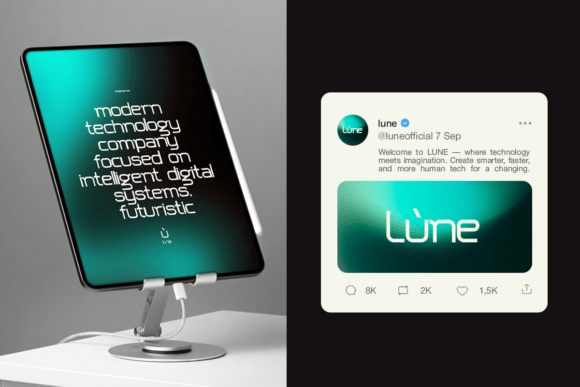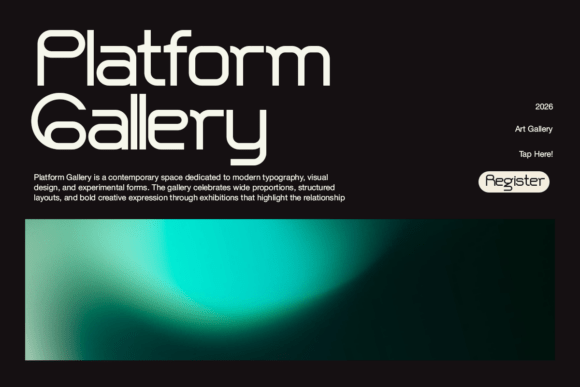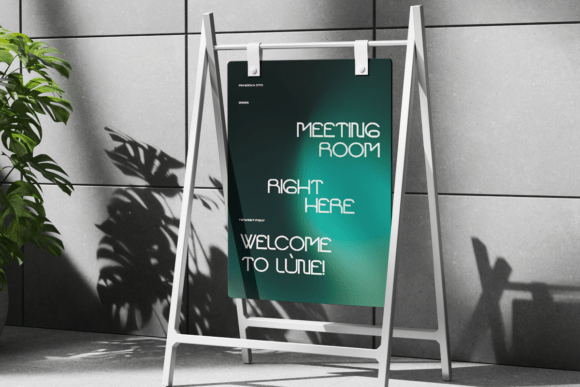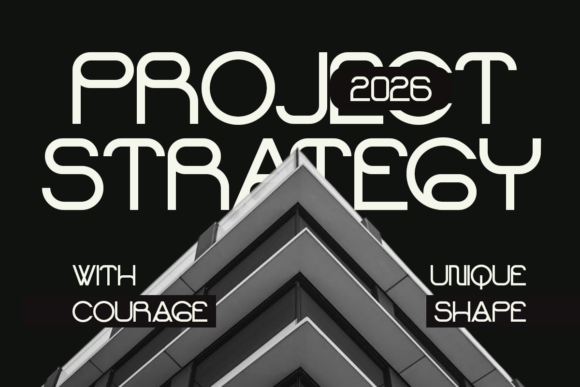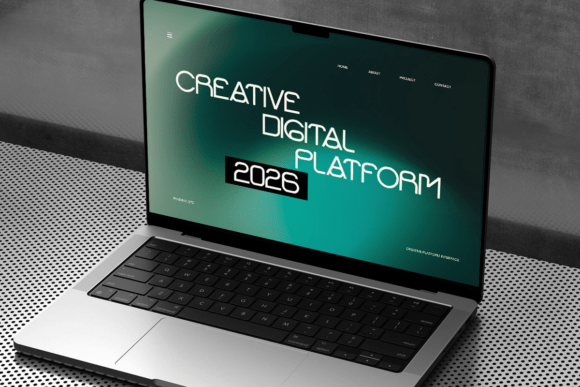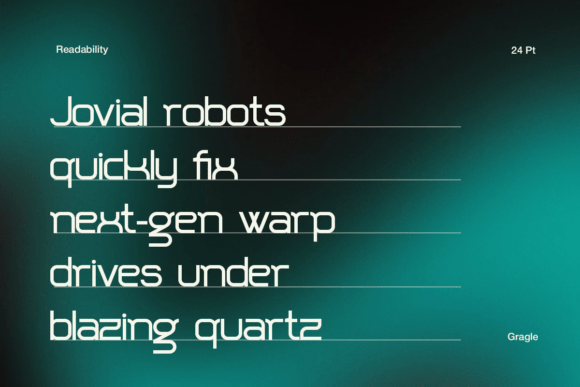
Introducing Gragle Font: The Ultimate Modern Techno Display Font
In the world of digital design, typography plays a crucial role in conveying the tone and personality of a brand or project. For those looking to make a bold statement with their visual identity, Gragle Font is the perfect solution. This modern techno display font is specifically crafted to evoke a sense of sleekness, futurism, and innovation, making it an ideal choice for technology branding, gaming visuals, digital interfaces, and modern creative projects.
The Design Philosophy Behind Gragle
Gragle Font is built on the principles of sleek geometric construction, futuristic curves, and clean digital aesthetics. Its unique letterforms are designed to create a strong high-tech atmosphere, instantly grabbing the attention of your audience. The font’s design is characterized by its bold and contemporary presence, which is balanced with excellent readability. This makes Gragle an incredibly versatile font that can be used across various platforms and applications.
Key Features of Gragle Font
- Modern Techno Design: Gragle boasts a cutting-edge design that is perfect for technology-driven brands and projects.
- Sleek Geometric Construction: The font’s geometric construction gives it a sleek and modern look that is sure to impress.
- Futuristic Curves: Gragle’s curves are carefully crafted to evoke a sense of futurism and innovation.
- Clean Digital Aesthetics: The font’s clean digital aesthetics make it perfect for digital interfaces, gaming visuals, and modern creative projects.
- 1 Versatile Regular Style: Gragle is designed in a single, versatile regular style that can be used across various applications.
- Excellent Readability: Despite its bold and contemporary presence, Gragle maintains excellent readability, making it perfect for use in a variety of contexts.
Use Cases for Gragle Font
Gragle Font is an incredibly versatile font that can be used in a wide range of applications. Here are some of the most popular use cases:
- Technology Branding: Gragle is perfect for technology-driven brands looking to create a strong and modern visual identity.
- Gaming Visuals: The font’s futuristic design makes it an ideal choice for gaming visuals, including posters, logos, and in-game text.
- Digital Interfaces: Gragle’s clean digital aesthetics make it perfect for use in digital interfaces, including websites, apps, and software.
- Futuristic Posters: The font’s bold and contemporary presence makes it perfect for use in futuristic posters and flyers.
- Modern Creative Projects: Gragle is an excellent choice for modern creative projects, including art installations, exhibitions, and performances.
- Esports Branding: The font’s futuristic design makes it an ideal choice for esports branding, including team logos, jerseys, and marketing materials.
- Social Media Graphics: Gragle’s bold and contemporary presence makes it perfect for use in social media graphics, including Facebook posts, Instagram stories, and Twitter headers.
- Futuristic Editorial Layouts: The font’s clean digital aesthetics make it perfect for use in futuristic editorial layouts, including magazines, newspapers, and online publications.
Why Choose Gragle Font?
With so many fonts available, why choose Gragle? Here are just a few reasons:
- Unique Design: Gragle’s unique design sets it apart from other fonts, making it perfect for brands and projects looking to make a bold statement.
- Versatility: The font’s versatility makes it perfect for use in a wide range of applications, from technology branding to gaming visuals.
- Readability: Gragle’s excellent readability makes it perfect for use in digital interfaces, where clarity is essential.
- Innovative Spirit: The font’s futuristic design embodies the innovative spirit of modern technology and design.
In conclusion, Gragle Font is the ultimate modern techno display font for designers and crafters looking to create a bold and futuristic visual identity. Its unique design, versatility, and excellent readability make it perfect for use in a wide range of applications, from technology branding to gaming visuals. Whether you’re building a tech startup identity, UI design, esports branding, social media graphics, or futuristic editorial layouts, Gragle adds a sharp, innovative, and cutting-edge visual character to your work.